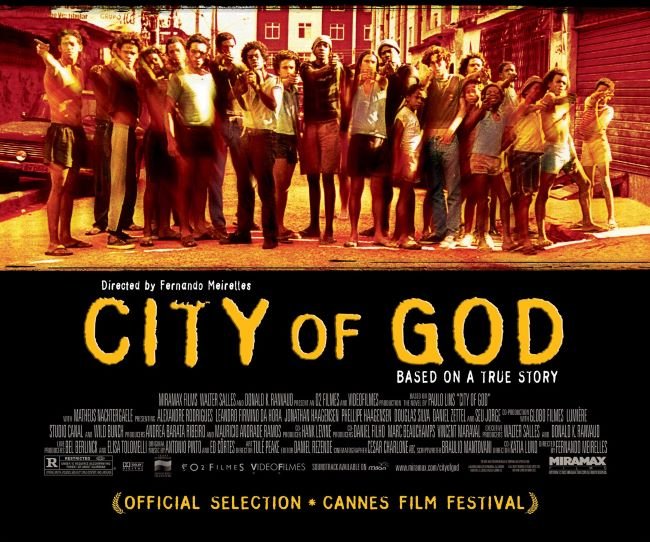
City of God font hits with the same unfiltered force as Fernando Meirelles’ landmark 2002 Brazilian crime drama — rough, industrial, and impossible to look away from. The title design closely resembles FF Stamp Gothic Std by Just van Rossum, a premium typeface whose distressed, stamped-ink character perfectly mirrors the film’s raw portrayal of life in Rio’s favelas. For those seeking a freely available equivalent, Inkbleed Font delivers a similar bold, weathered presence that pulls no punches.
This is typography that feels like it was printed under pressure — heavy, urgent, and slightly imperfect in all the right ways. Designers working on gritty documentary-style projects, urban editorial layouts, street art-inspired branding, or any creative work that demands visual authenticity over polish will find it a powerful and expressive tool. It carries weight not just visually, but atmospherically — the kind of letterform that tells a story before a single word is read.